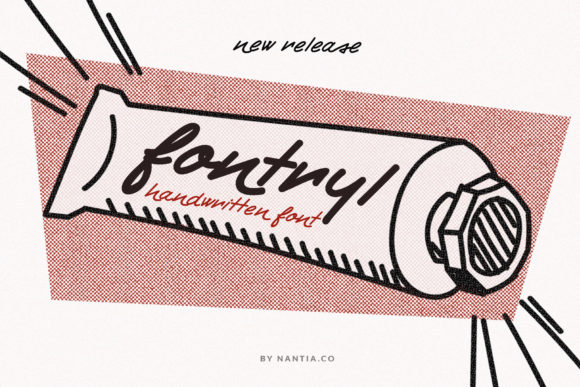
Fontryl Font: Elevate Your Designs with a Retro Handwritten Flair
In the world of typography, fonts play a crucial role in making or breaking a design. A well-chosen font can elevate your project, making it stand out from the crowd, while a poorly chosen one can have the opposite effect. For designers, artists, and crafters looking to add a touch of personality to their work, Fontryl Font is an exceptional choice. This article will delve into the unique features of Fontryl, exploring why it’s hailed as an extraordinary retro handwritten font with a bold feel, and how it can be the perfect addition to your design toolkit.
What is Fontryl Font?
Fontryl is a distinctive, retro-inspired handwritten font that exudes a bold and charismatic feel. Its unique charm lies in its ability to blend vintage aesthetics with a modern edge, making it incredibly versatile for various design applications. Whether you’re working on a branding project, crafting a unique piece of art, or simply looking to enhance your digital content, Fontryl offers a refreshing alternative to more traditional fonts.
The Characteristics of Fontryl Font
Fontryl’s appeal can be attributed to its several standout characteristics:
- Retro Aesthetic: Fontryl’s roots in retro design make it perfect for projects that require a nostalgic feel, from vintage branding to themed events.
- Handwritten Feel: The font’s handwritten nature adds a personal touch to any design, making it more approachable and engaging.
- Bold and Assertive: Fontryl’s bold strokes ensure that your text doesn’t go unnoticed, making it ideal for headlines, titles, and any text that needs to stand out.
- Versatility: Despite its strong personality, Fontryl is surprisingly versatile, capable of fitting into a wide range of design contexts, from playful and whimsical to sophisticated and elegant.
Uses of Fontryl Font
The unique qualities of Fontryl make it suitable for a myriad of design projects:
- Branding and Logos: Fontryl can help create memorable brand identities that stand out from the competition.
- Posters and Flyers: Its bold and eye-catching nature makes it perfect for posters, flyers, and any form of print advertising.
- Digital Media: Fontryl can add a distinctive touch to website headers, social media graphics, and digital newsletters.
- Art and Craft Projects: For artists and crafters, Fontryl can be a valuable asset for adding text to handmade cards, journals, and other craft projects.
Why Choose Fontryl Font?
With so many fonts available, what makes Fontryl stand out? Here are a few reasons why designers and creatives are gravitating towards Fontryl:
- Uniqueness: In a sea of similar fonts, Fontryl’s distinctive retro vibe and bold feel make it a unique find.
- Legibility: Despite its boldness, Fontryl remains highly legible, ensuring your message is always clear.
- Emotional Connection: The handwritten and somewhat imperfect nature of Fontryl can create an emotional connection with your audience, making your designs more relatable.
- Easy to Use: Fontryl is designed to be user-friendly, making it easy to incorporate into your projects, regardless of your design experience.
How to Use Fontryl Font Effectively
To maximize the impact of Fontryl, consider the following tips:
- Mix and Match: Combine Fontryl with simpler fonts for contrast, using it for headings and a more straightforward font for body text.
- Play with Colors: Take advantage of Fontryl’s boldness by experimenting with vibrant colors that complement its retro feel.
- Adjust Size and Weight: Don’t be afraid to experiment with different sizes and weights of Fontryl to create visual hierarchy and emphasis.
Fontryl Font is more than just a typeface; it’s a design statement. Its extraordinary retro handwritten feel, coupled with its boldness, makes it a powerful tool for designers looking to make an impact. Whether you’re aiming to evoke a sense of nostalgia, add a personal touch, or simply stand out in a crowded digital landscape, Fontryl is an excellent choice. With its versatility, legibility, and emotional resonance, Fontryl can help elevate your designs, making them more engaging, memorable, and effective. So, if you’re on the lookout for a font that combines the charm of the past with the assertiveness of the present, Fontryl is undoubtedly worth considering.